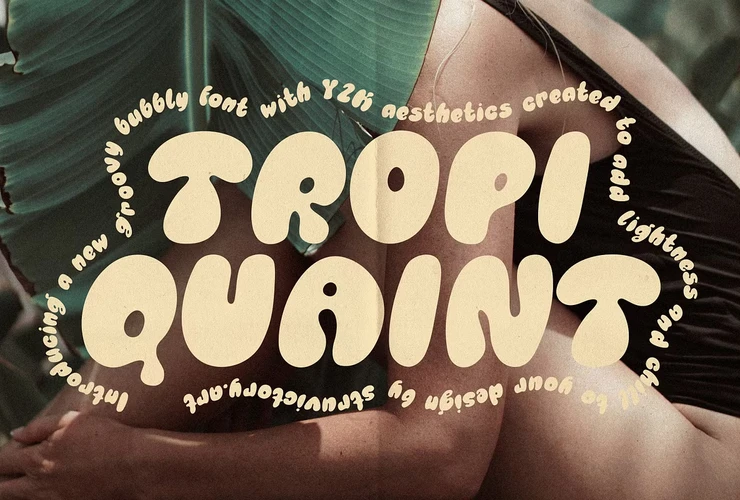
Tropiquaint: The Bubbly Y2K Groovy Font That Brings Fun to Your Designs
Tropiquaint is the font that perfectly blends the nostalgia of the Y2K era with modern design sensibilities. With its playful, rounded curves and bubbly, groovy aesthetic, Tropiquaint is the go-to typeface for anyone looking to inject a dose of fun and personality into their projects. Whether you’re crafting vibrant social media graphics, eye-catching website headers, or quirky merchandise, Tropiquaint is the ideal choice to make your designs pop.
Why Choose Tropiquaint?
Tropiquaint captures the essence of early 2000s design while keeping it relevant for today’s creative needs. The font’s unique style makes it versatile for a variety of applications, including:
Social Media Graphics: Add a fun and engaging touch to your posts and stories.
Website Headers: Make your website stand out with a bold, groovy header that draws attention.
Merchandise Design: Perfect for quirky and playful products that resonate with a youthful audience.
Branding: Create a brand identity that’s both nostalgic and fresh, appealing to a wide demographic.
Features of Tropiquaint
Playful, Rounded Curves: Tropiquaint’s design is all about fun, with curves that evoke the bubbly, carefree spirit of the Y2K era.
Supports Latin-Based Languages: The font is versatile enough to accommodate the most popular Latin-based languages, making it suitable for global audiences.
Versatile Use: From digital to print, Tropiquaint adapts seamlessly to various mediums, ensuring your designs are always on point.